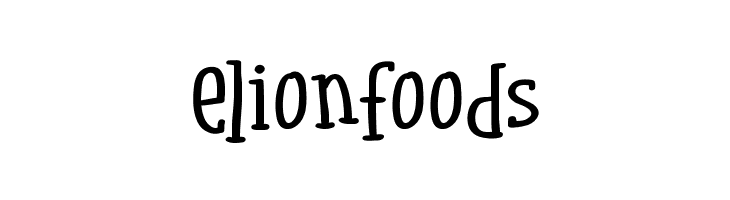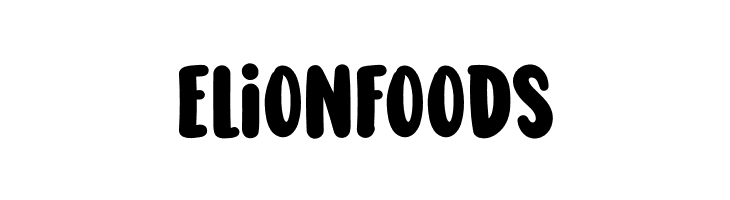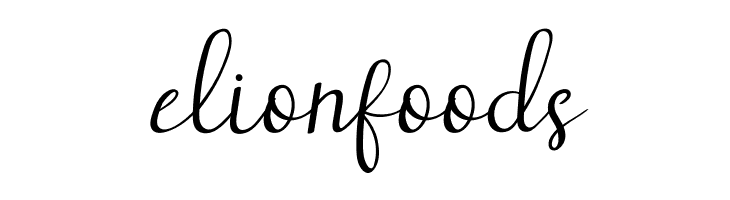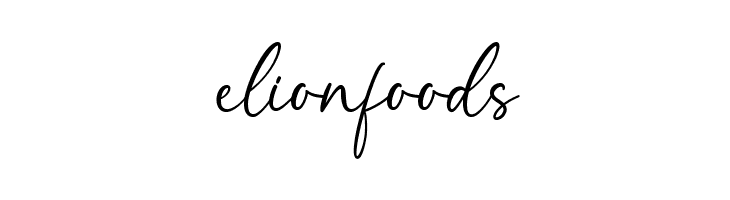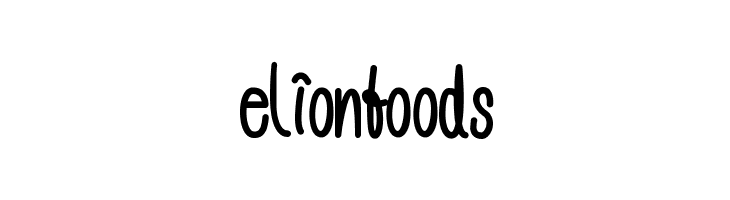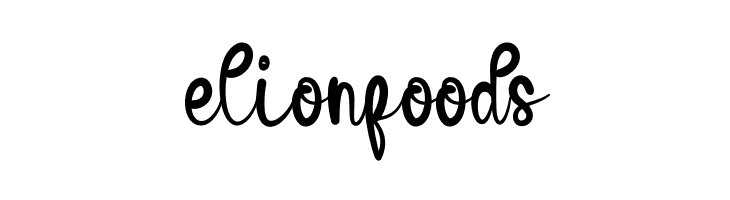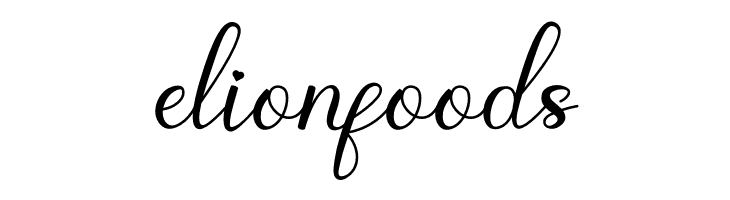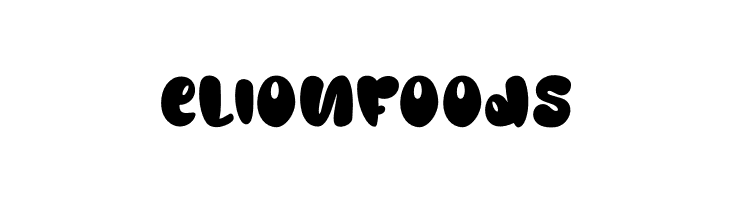
A playful, handwritten font with smooth, flowing lines and a casual style.
Playful handwritten font.
Bold, playful, hand-drawn display font with cartoonish style.
A playful and elegant script font with fluid, cursive strokes.
A playful, handwritten font with a casual and friendly style.
A tall, narrow font with clean lines and a modern, elegant style.
A playful, hand-drawn script font with bold, flowing letters.
A playful and elegant script font with flowing cursive letters.
A playful, bold font with thick, rounded characters and a lively, energetic style.
A playful, hand-drawn font with a whimsical and elegant style.